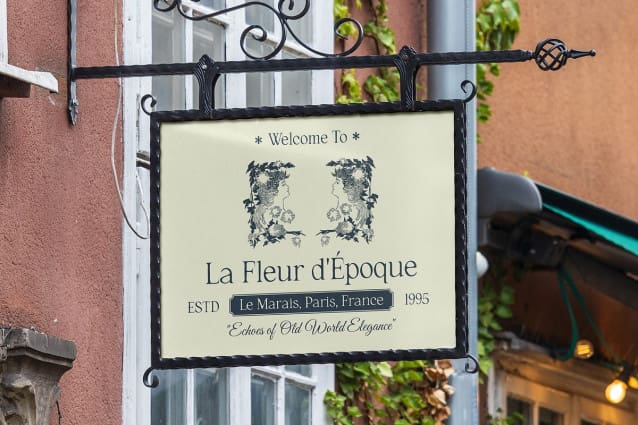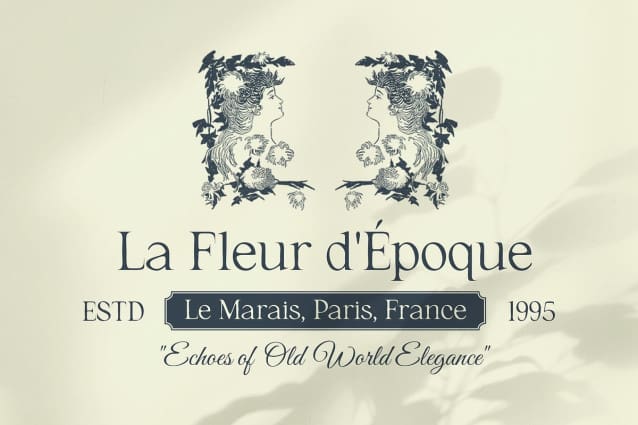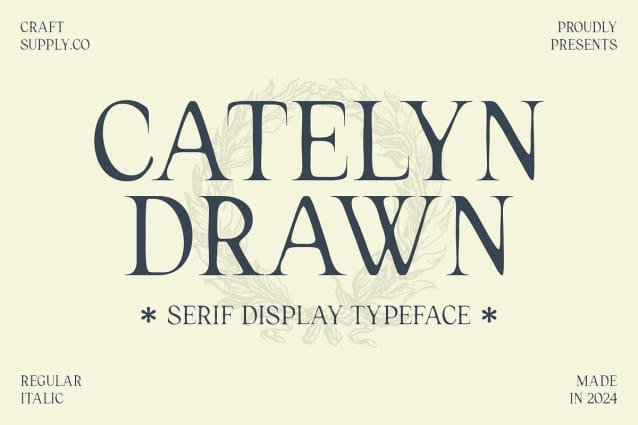
Catelyn Drawn Font
Catelyn Drawn Font is a modern serif font that beautifully marries elegance with an artistic flair. Its unique design features fine lines and intricate details that evoke the charm of hand-drawn typography, adding a personal and creative touch to any project. This font captures the essence of craftsmanship while maintaining a contemporary aesthetic, making it perfect for designs that seek to stand out with sophistication.
The carefully balanced proportions of Catelyn Drawn ensure clarity in typography while delivering an elegant visual impression. Each letterform is thoughtfully crafted to provide excellent readability, making it suitable for both display and body text. This quality allows Catelyn Drawn to shine in a variety of applications, from high-end branding to refined printed materials, ensuring that your message is communicated effectively without sacrificing style.
Catelyn Drawn is ideal for a wide range of design projects that require a touch of class and uniqueness. Whether you’re creating elegant invitations, sophisticated branding materials, or artistic printed pieces, this font offers versatility while retaining its distinctive character. Its charming hand-drawn effect brings a sense of warmth and individuality, making it a go-to choice for designs that aim to highlight beauty and creativity.